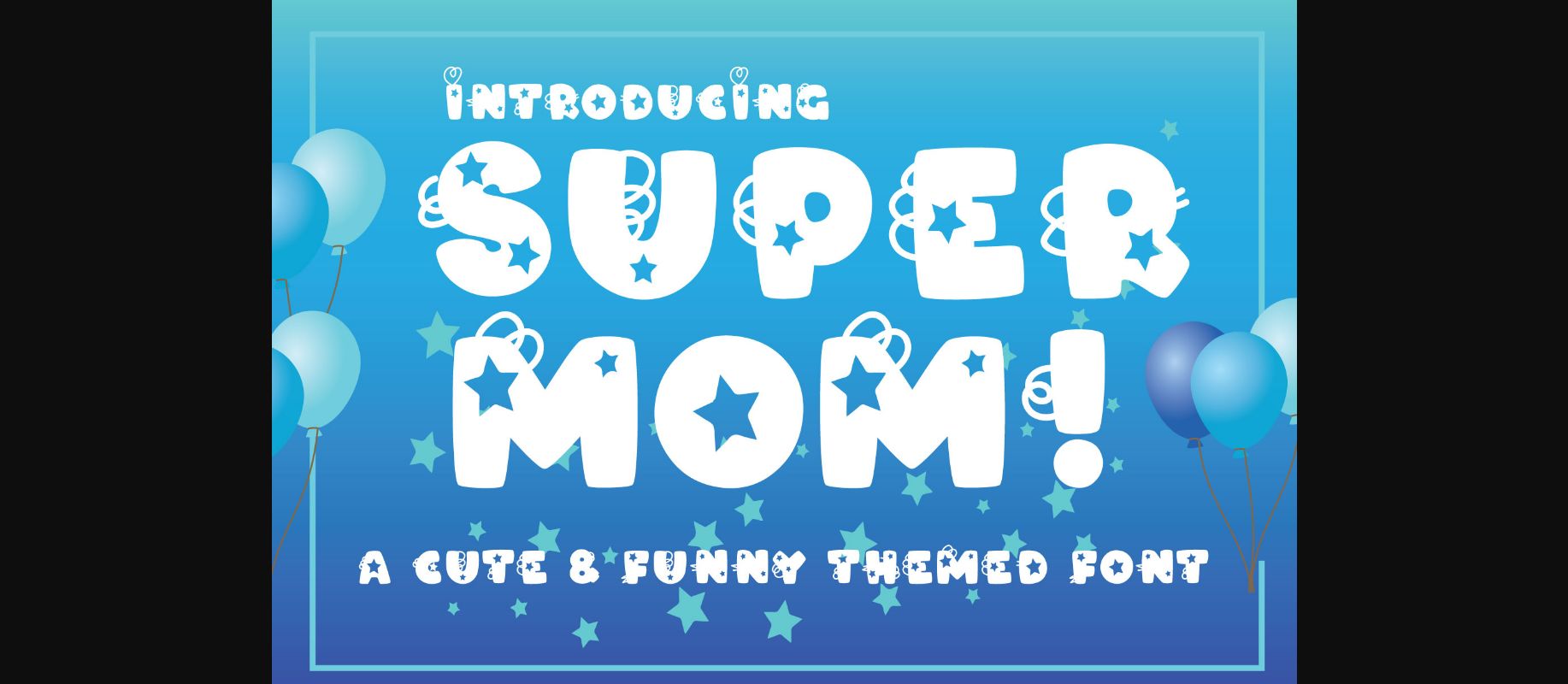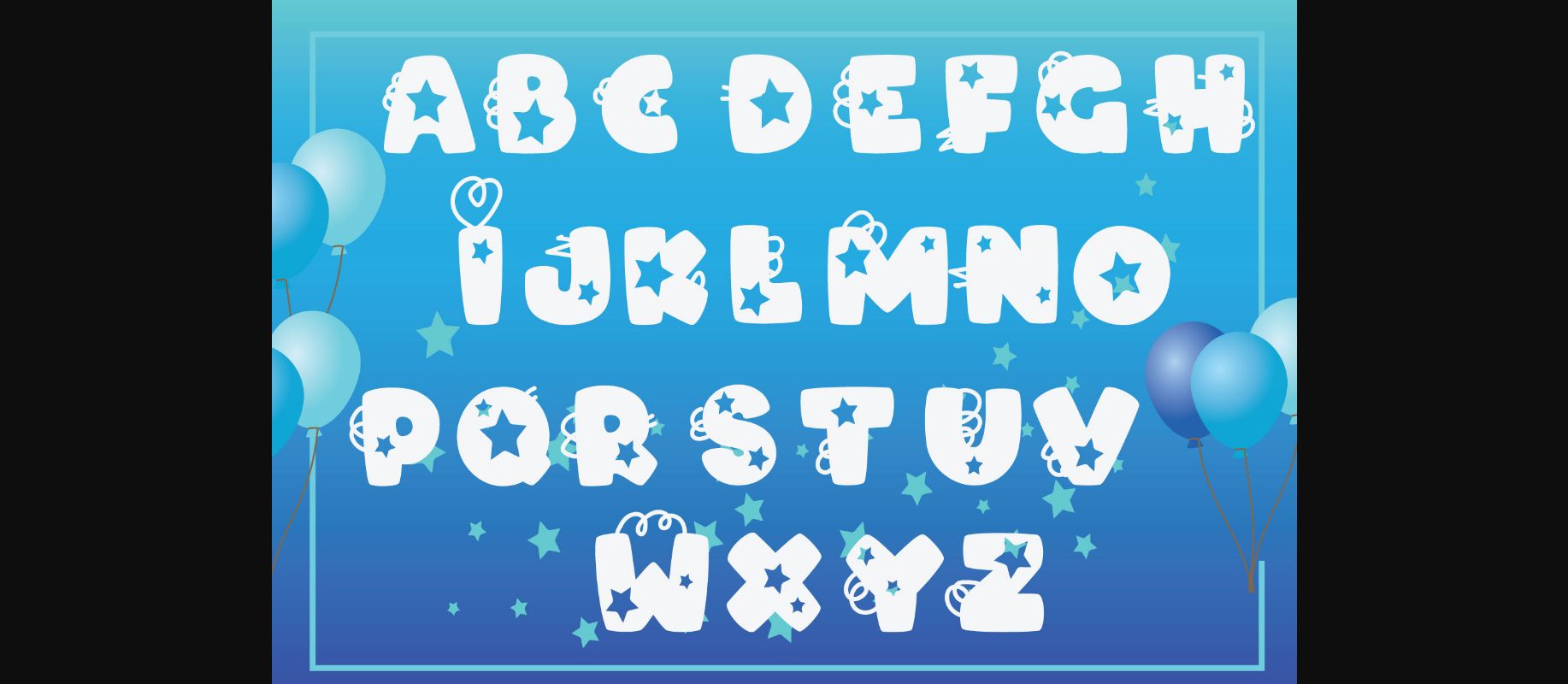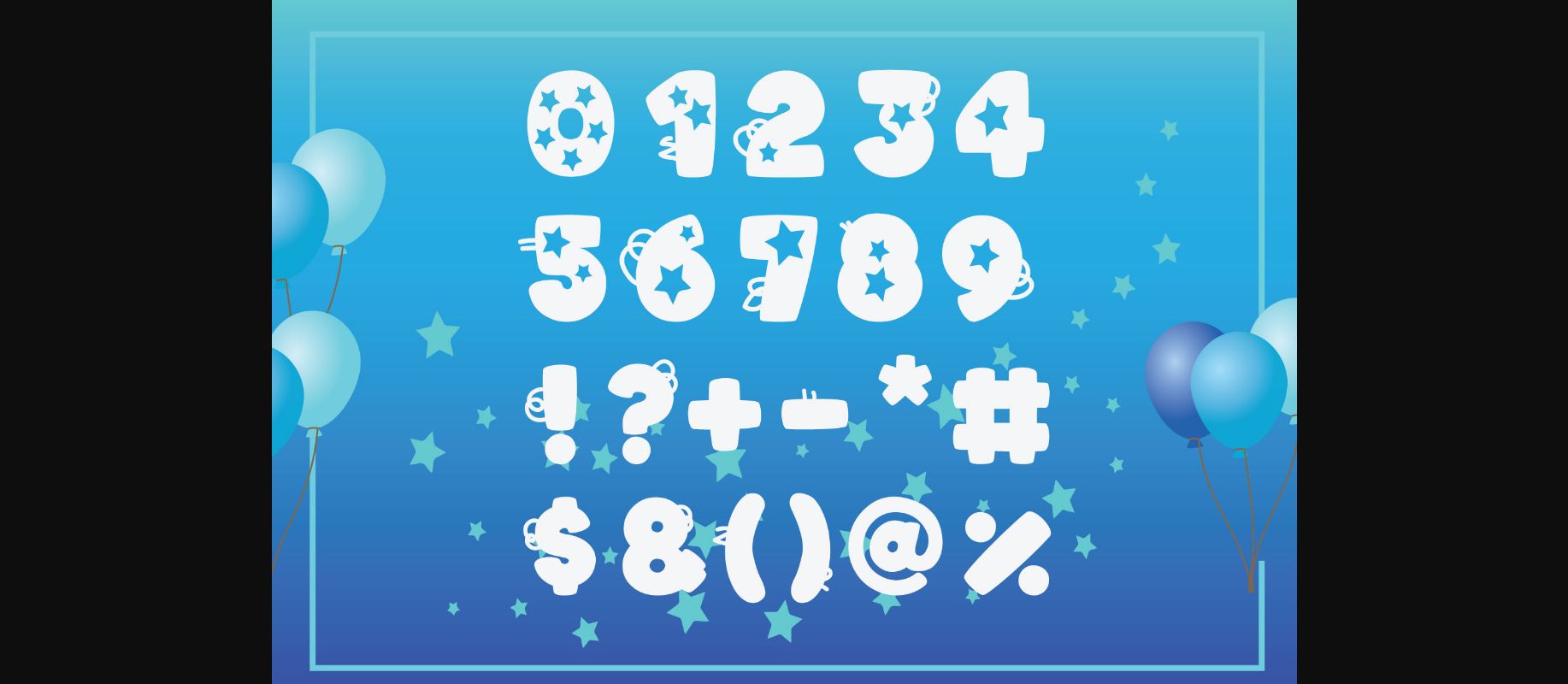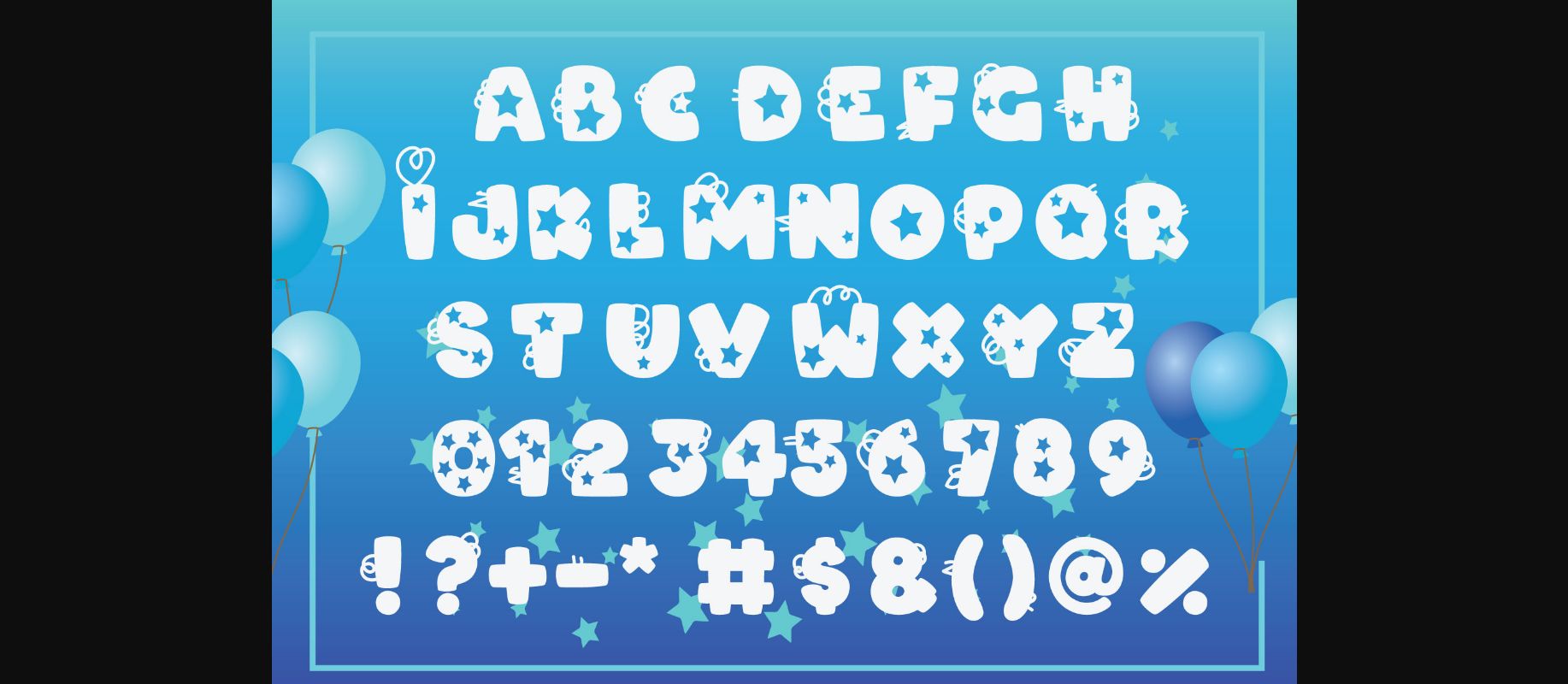
About SuperMOM! Font
SuperMOM! is a cute and fun decorative font. It embodies playfulness and authenticity and is the perfect choice for any children activity or school project. Add this chunky lettered font to your designs and notice how it makes them come alive!